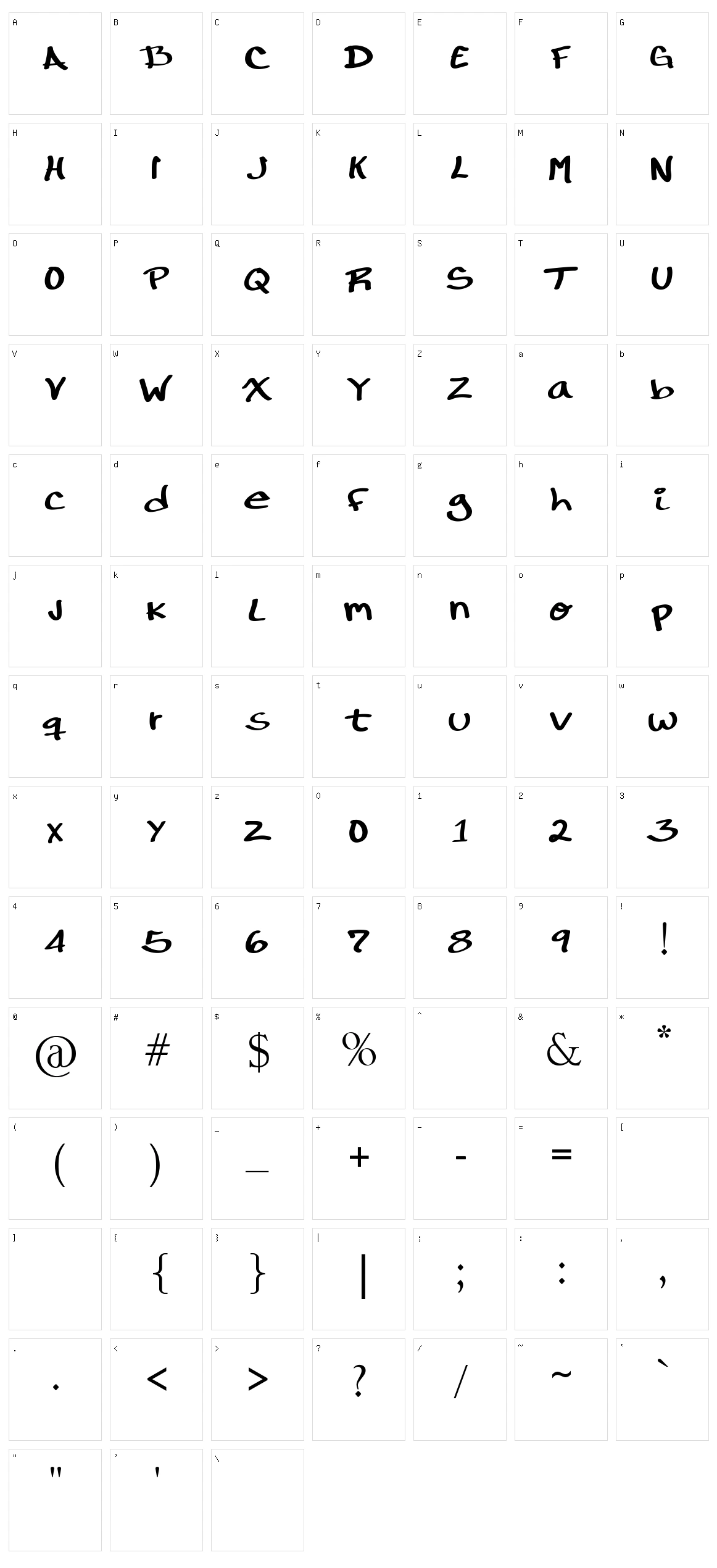
The free font RonDRs Script is carefully designed by Ronald Rodriguez, showcasing a thoughtful balance of creativity and usability and falls under the Script font style. When you download the ZIP file, it contains only 21.33 KB of font files, making it lightweight and quick to download. Please review the license details below to understand permitted usage and distribution rights. If license information is not available, we recommend using this font for personal projects only or contacting the author directly for commercial usage permissions.